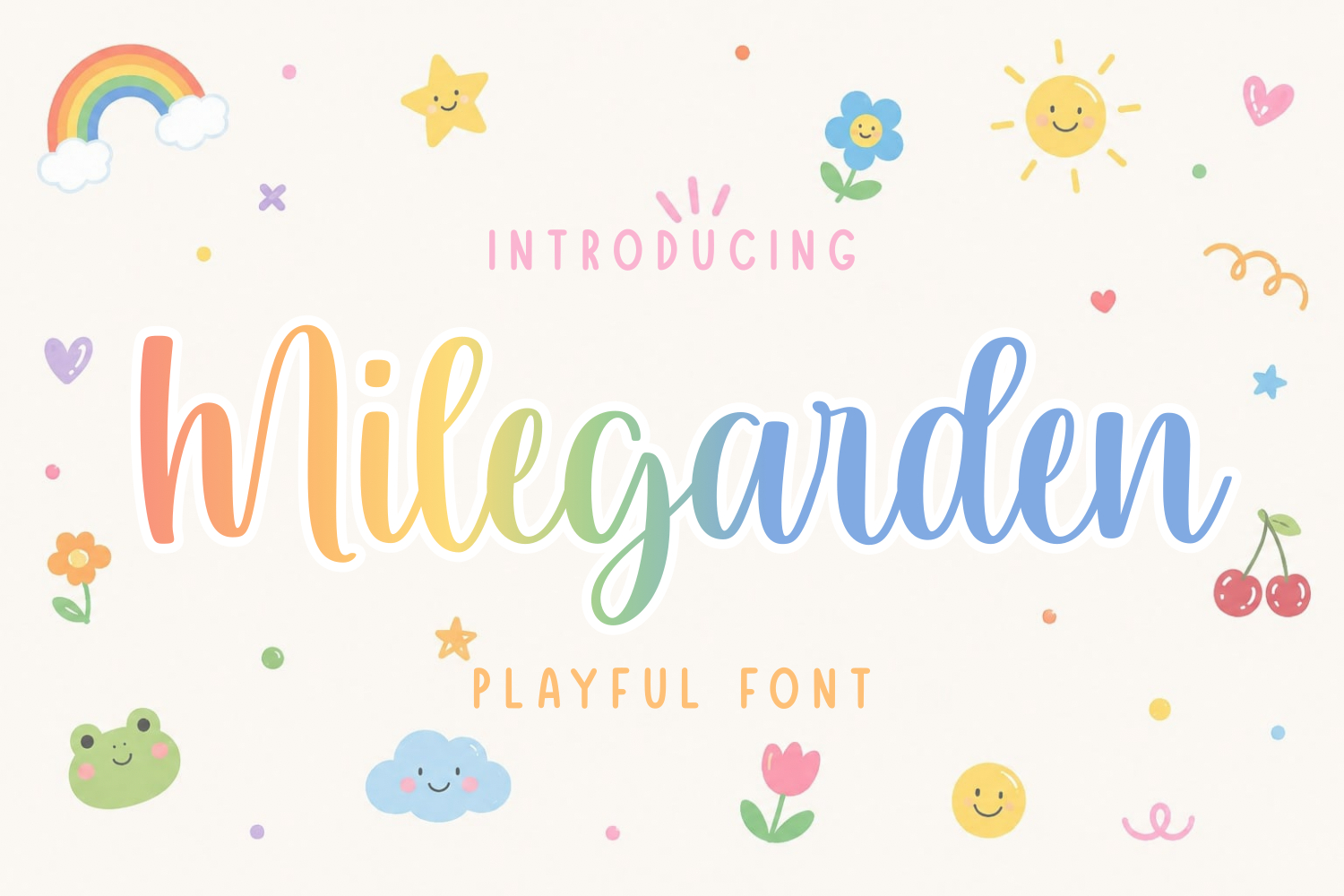
Milegarden is a cute and playful handwritten font filled with joy and imagination. Perfect for kids’ projects, birthday invitations, stickers, nursery decor, classroom materials, branding, and social media designs. Its friendly style brings warmth, fun, and happiness to every creative project.